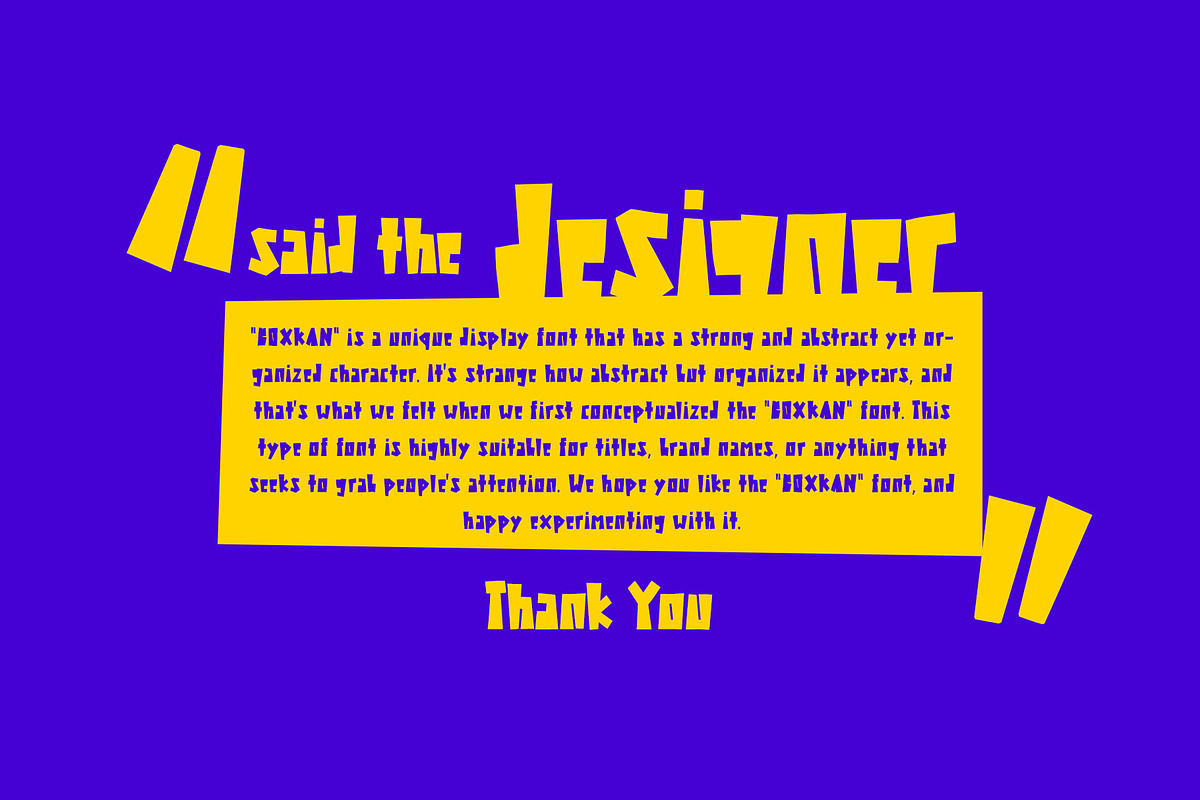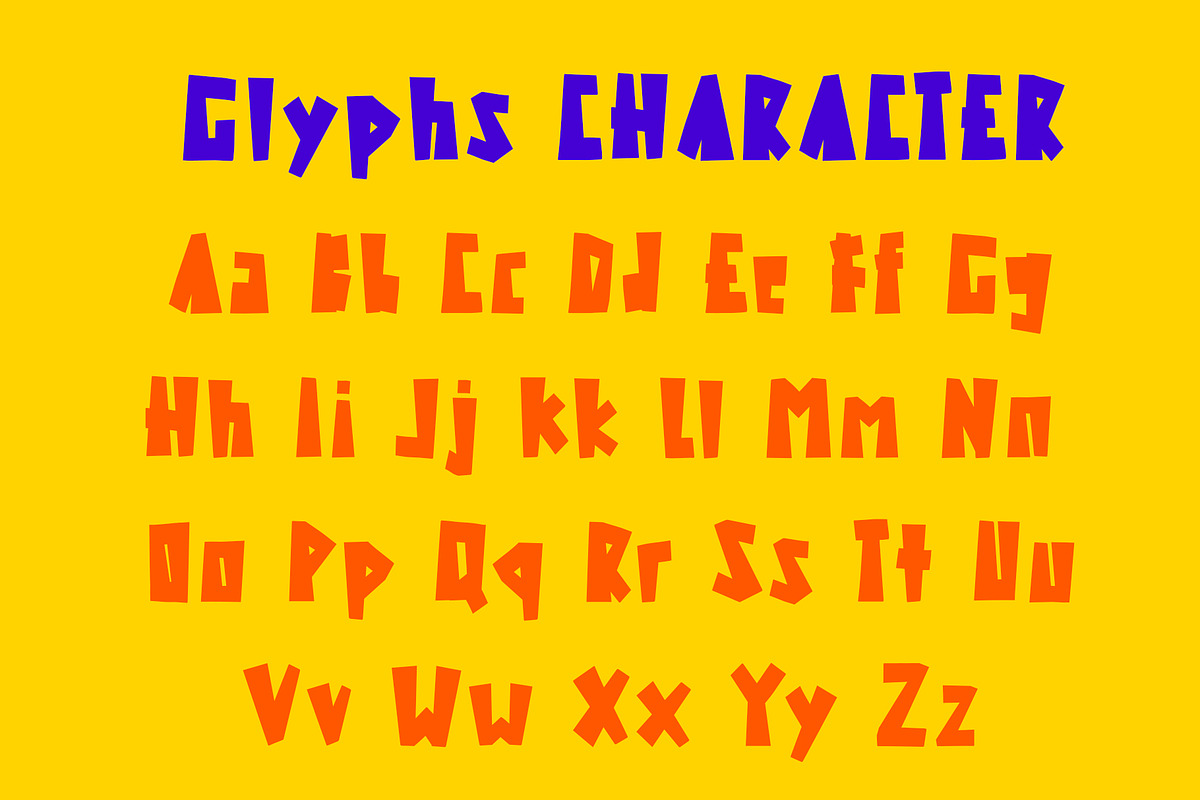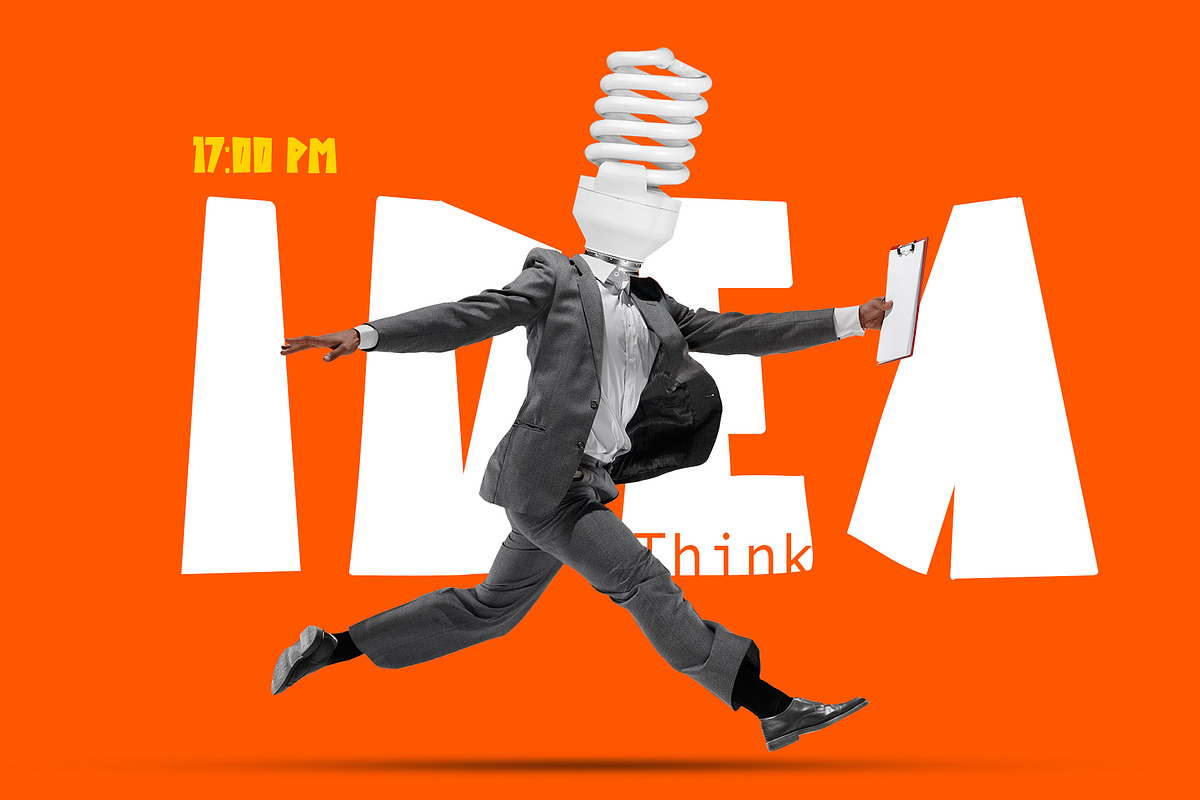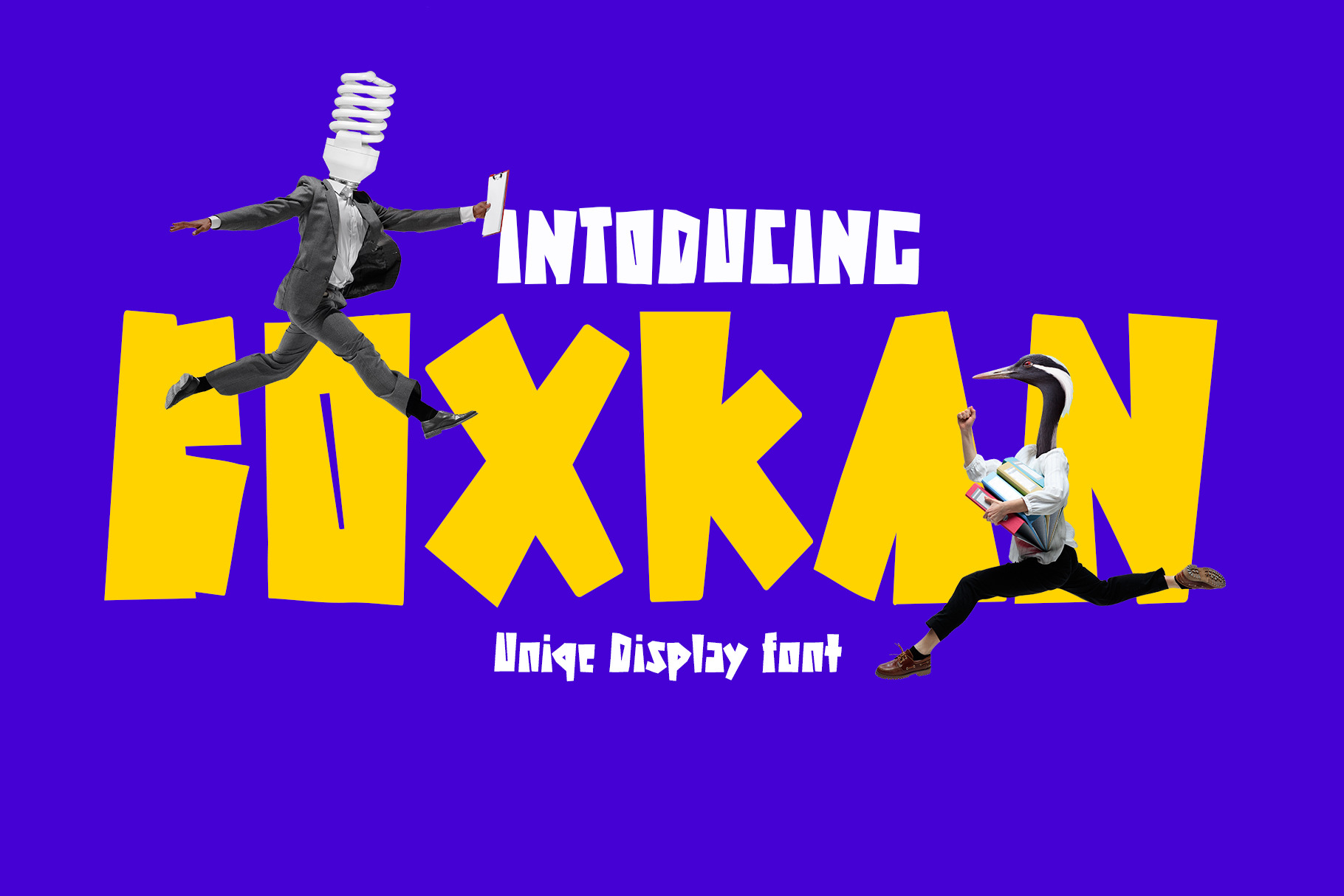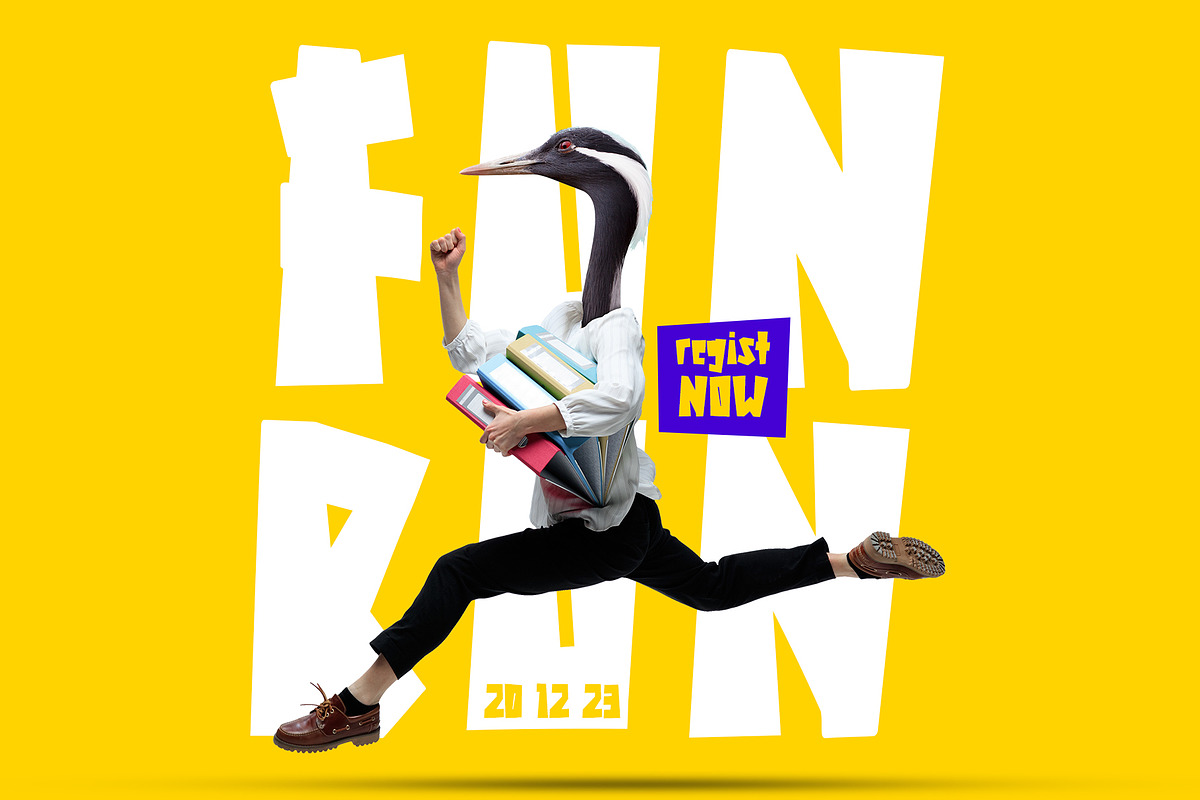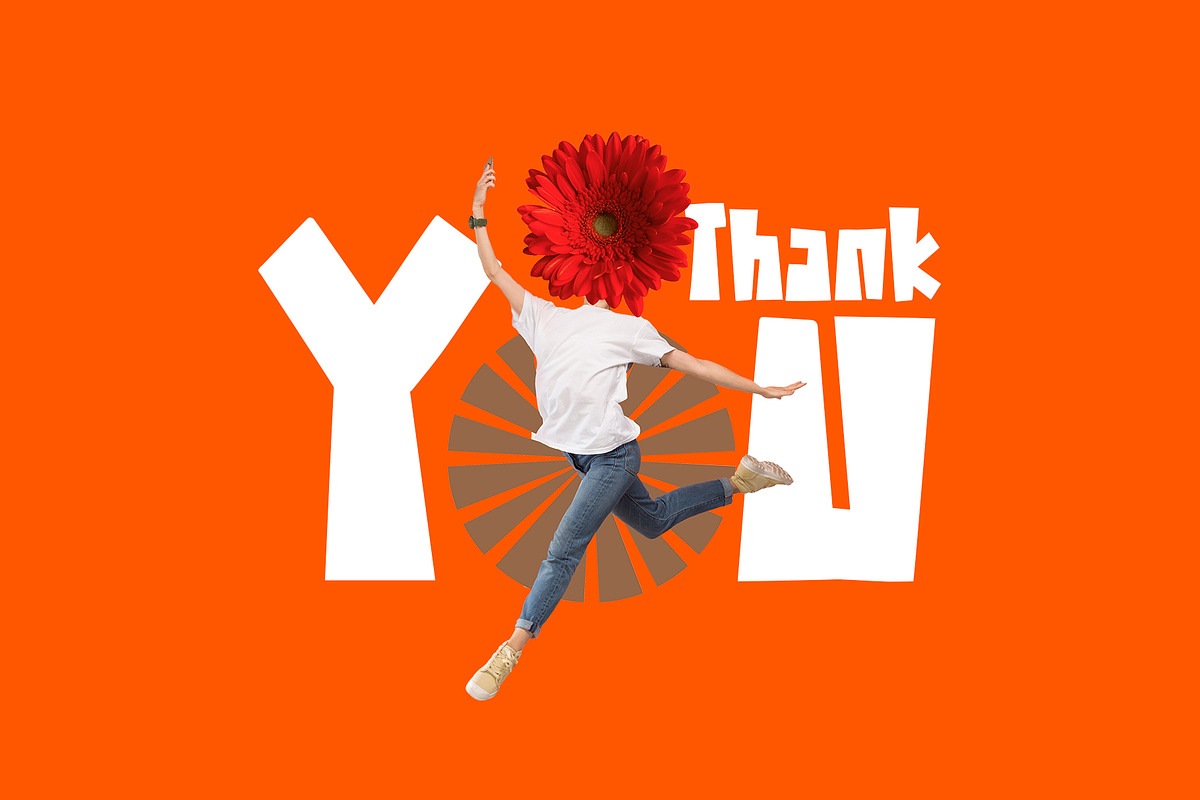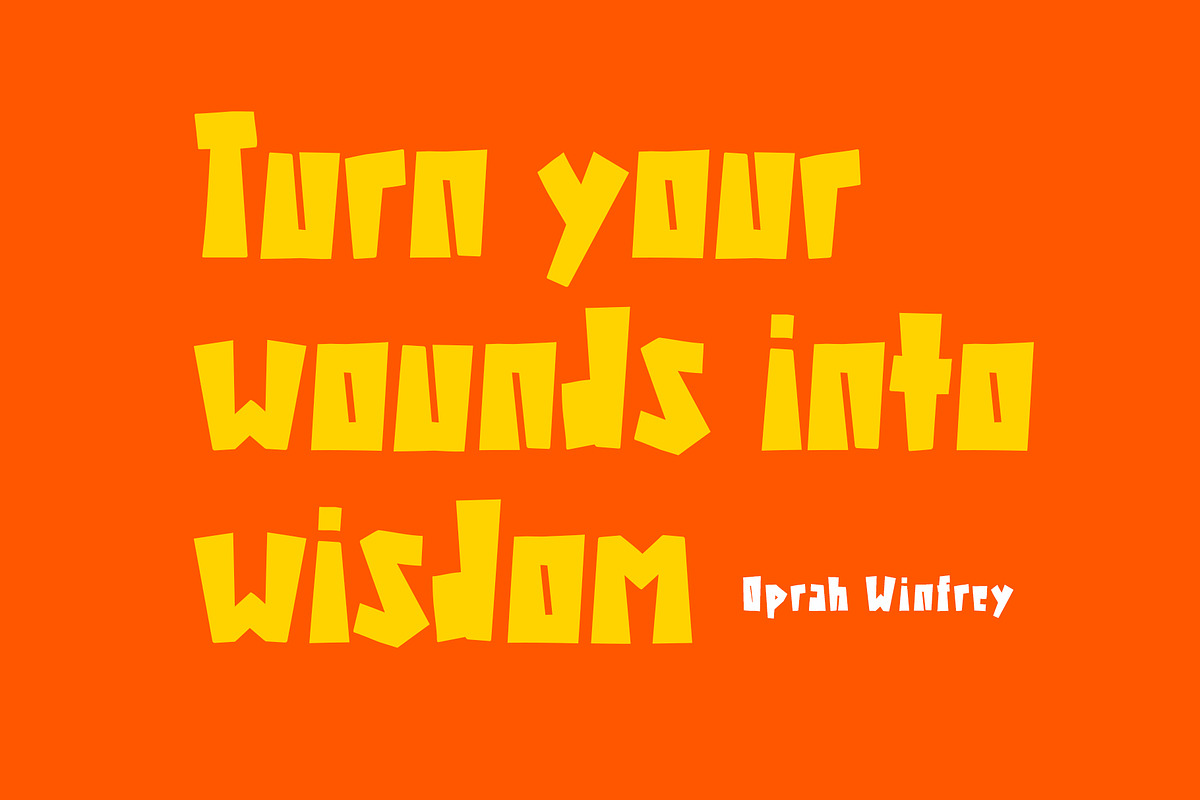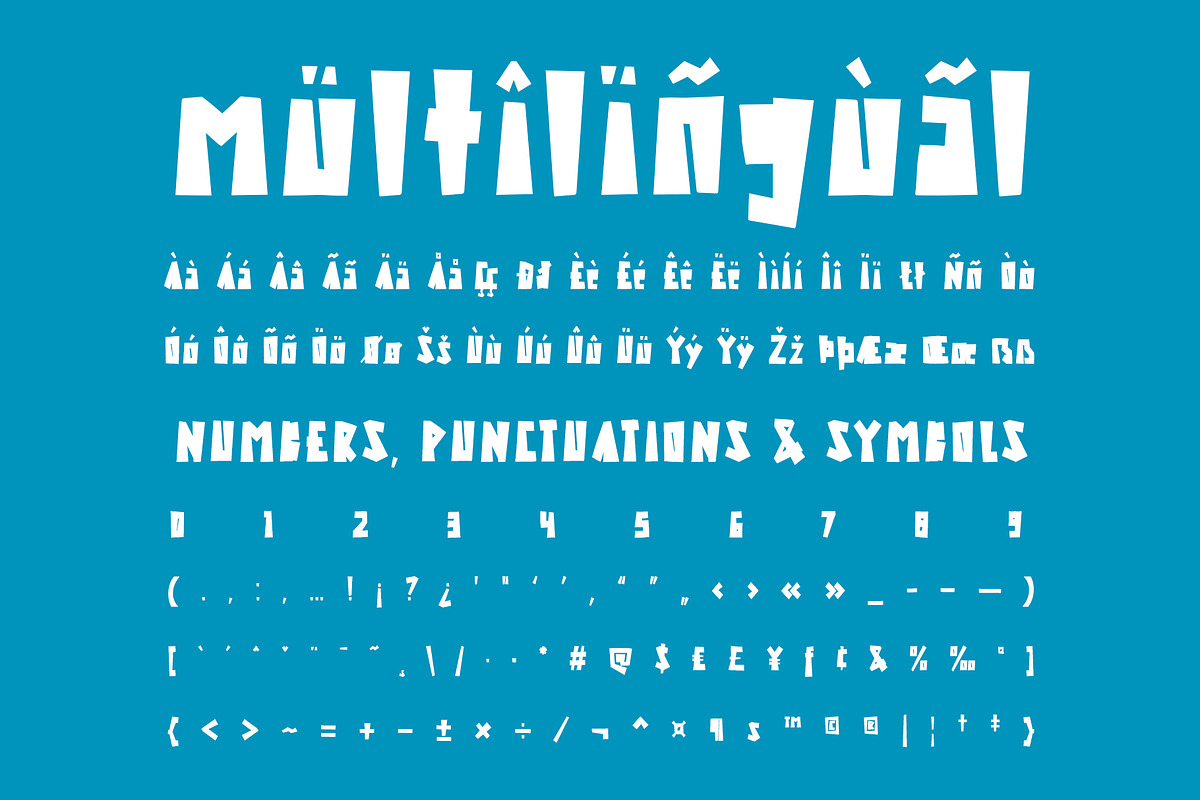
Boxkan Uniqe Display Font
BOXKAN is a modern display font that brings power and boldness to each of its letters. Designed with a strong and contemporary style, this font is suitable for various design projects that require a strong and daring impression.
The history of the creation of this font began with our desire to create a font that combines modern design elements with a prominent sense of power. We were inspired by the ever-evolving and challenging world of graphic design, where a strong and bold appearance becomes increasingly important in delivering an effective message.
BOXKAN comes with a sharp and geometric design, reflecting the firmness and assertiveness in each letter's form. Every line and angle is carefully selected to provide strong visual power and an impressive impression. The font reinforces the messages to be conveyed in the design, providing a bold and captivating look for readers.
By using the BOXKAN font in your design projects, you will add a strong and contemporary modern touch. This font is suitable for use in poster designs, branding, titles, and other projects that require a bold and prominent impression. The font provides visual strength that supports the messages you want to convey, creating a powerful and unforgettable impact on viewers.
BOXKAN is the right choice for designers who want to bring a strong and prominent impression to their work. With its modern style and assertiveness, this font will leave an impressive and captivating impression, attracting attention and enhancing the visual appeal of every design you create.